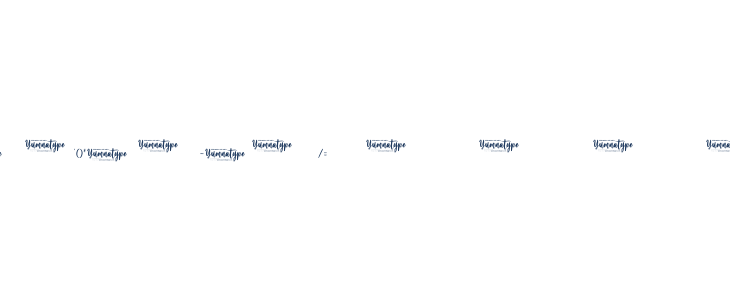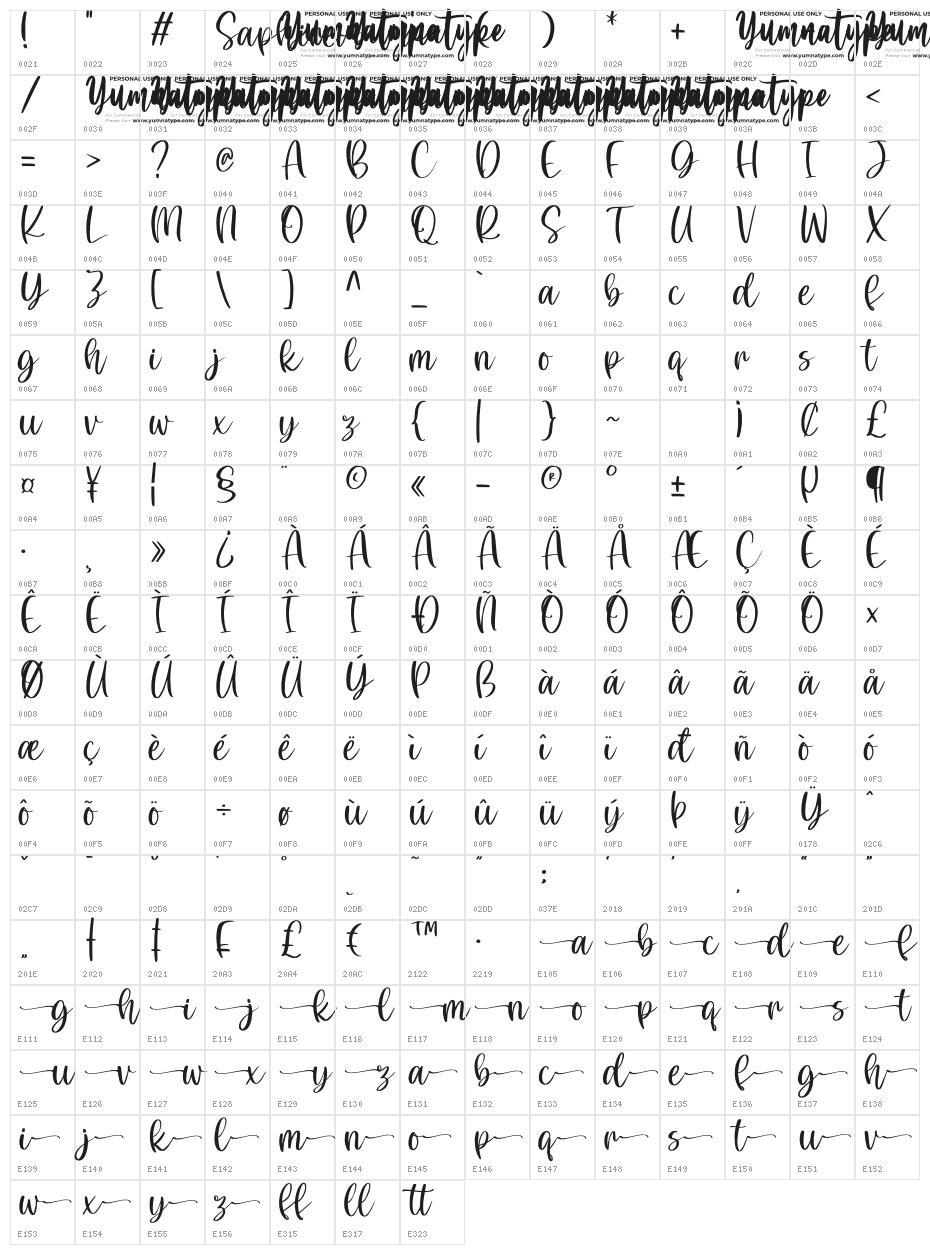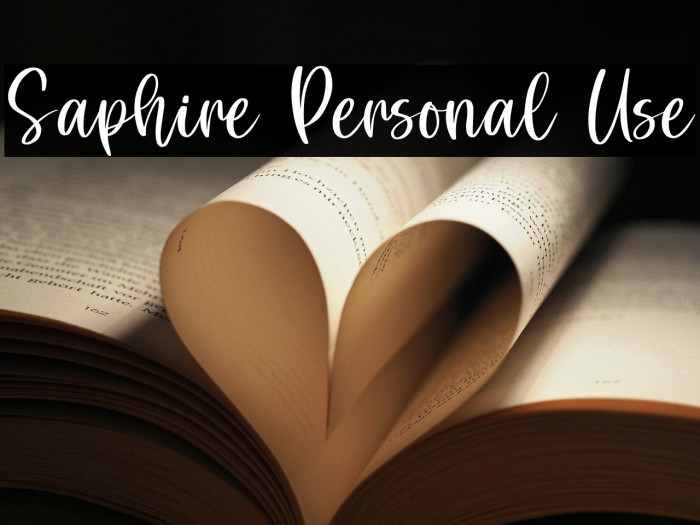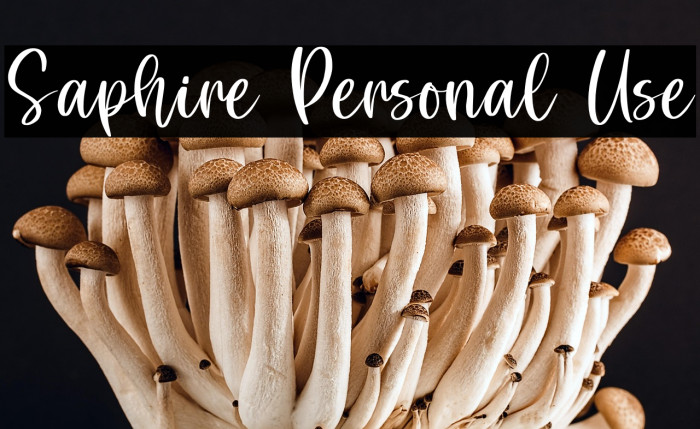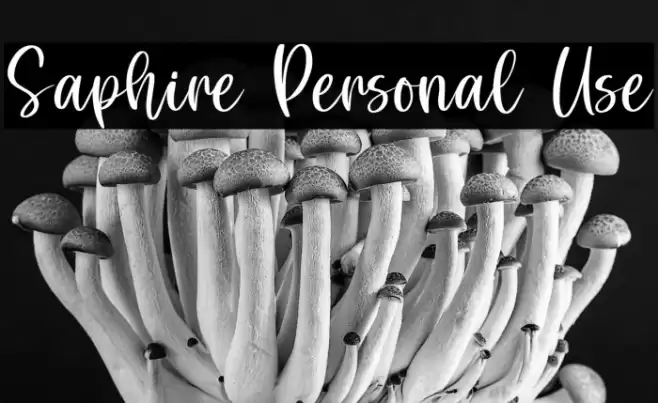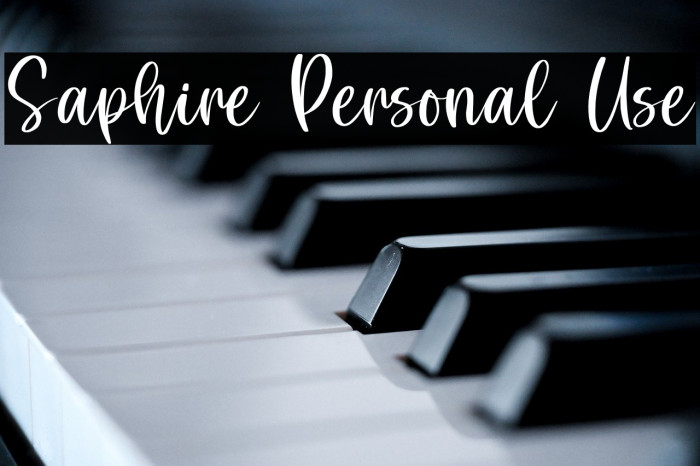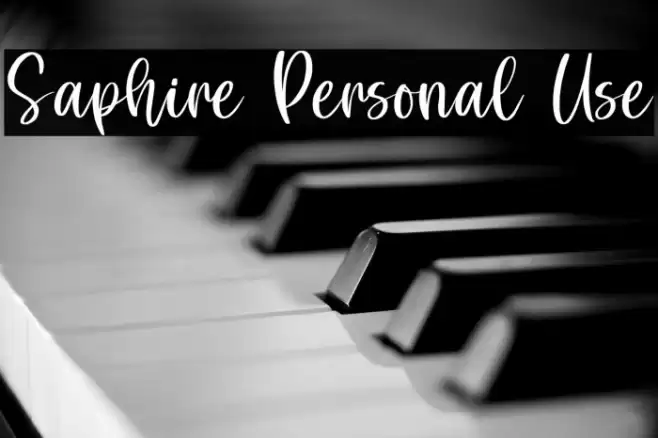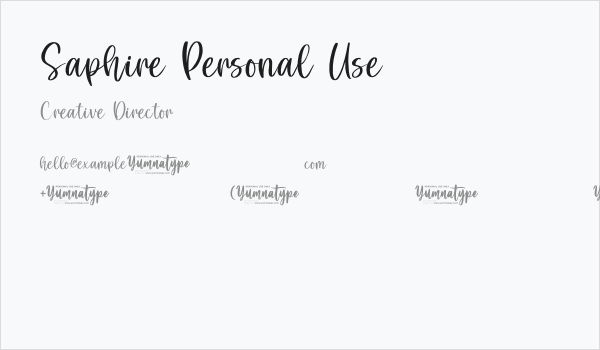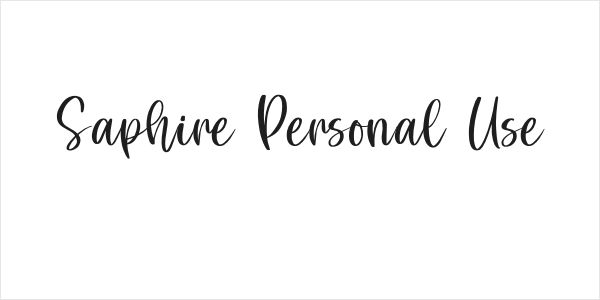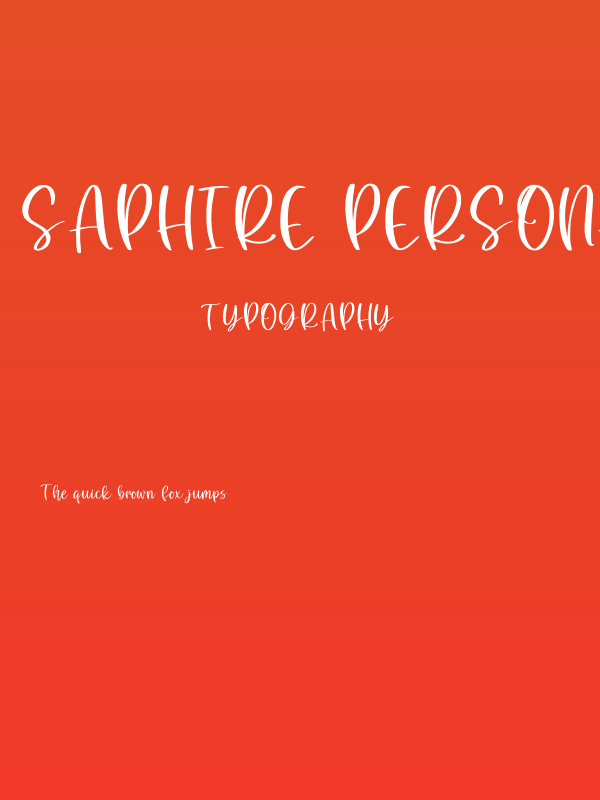
Saphire Personal Use Font
Saphire Personal Use Description
This font features a flowing, cursive style with a modern and elegant touch. The characters are connected, giving it a handwritten appearance that is both stylish and approachable. The strokes are smooth and consistent, with a slight slant that adds to its graceful look. The uppercase letters are bold and prominent, while the lowercase letters maintain a delicate balance, making it suitable for a variety of design projects. The font's overall aesthetic is sophisticated yet friendly, making it ideal for personal branding, invitations, and creative projects.